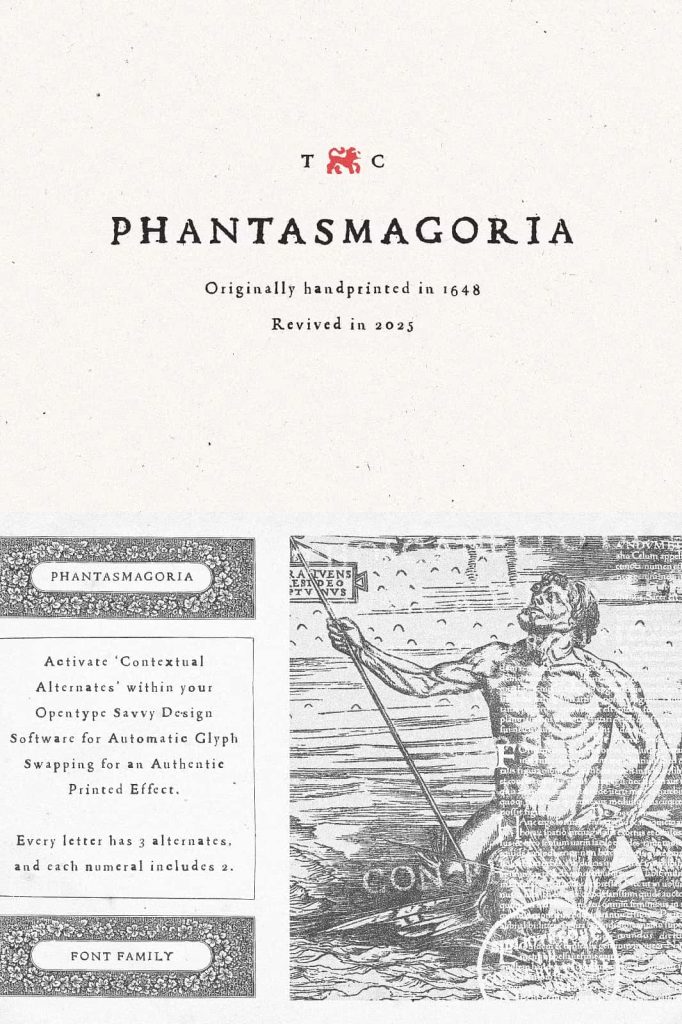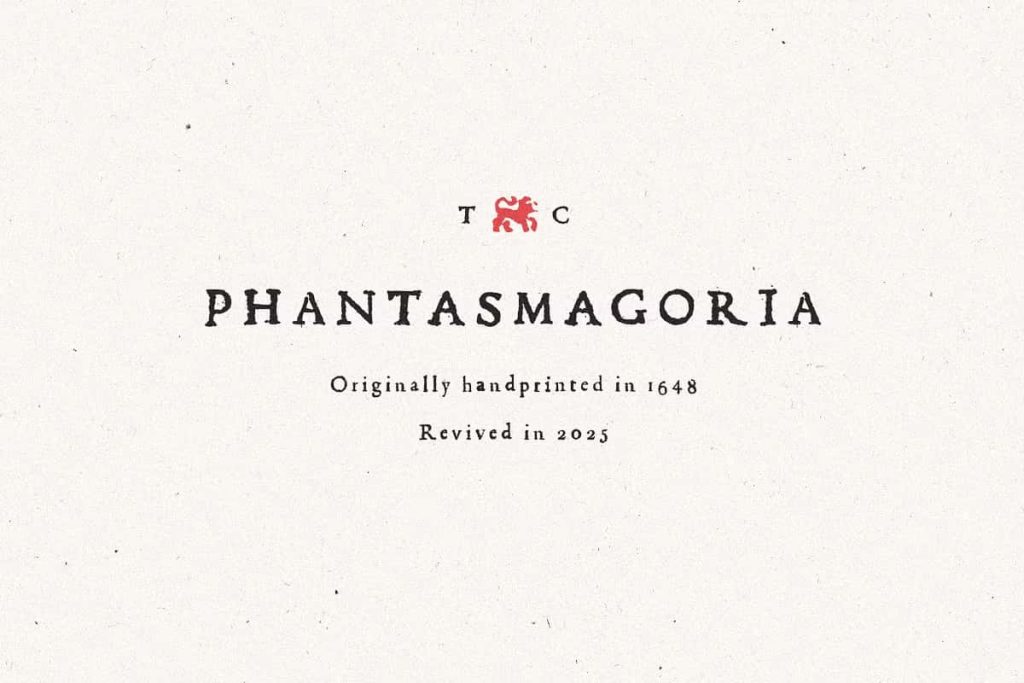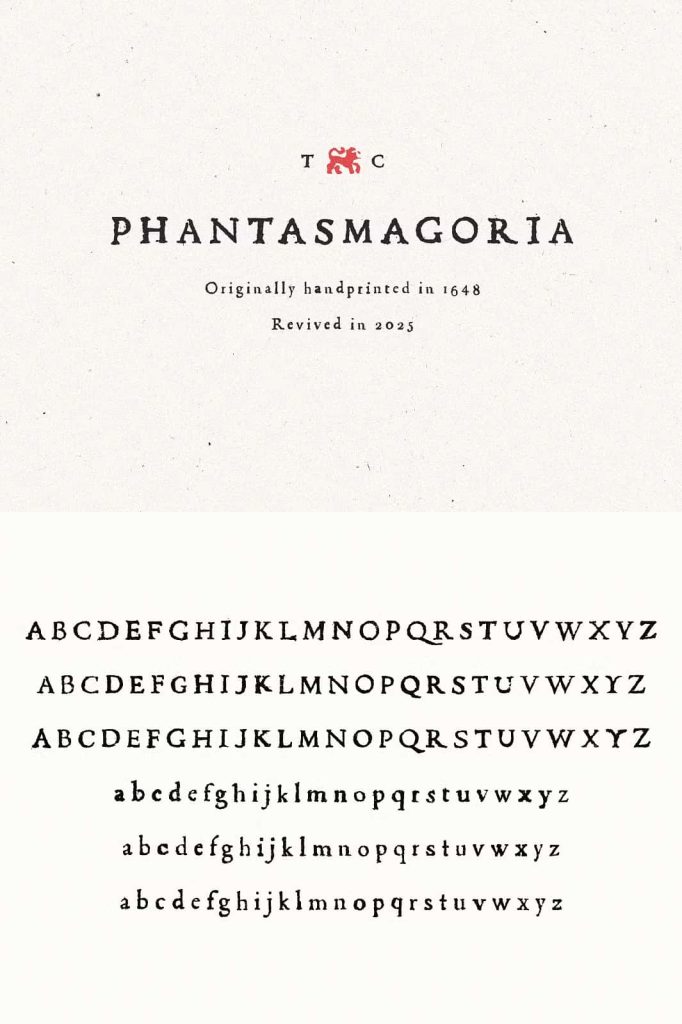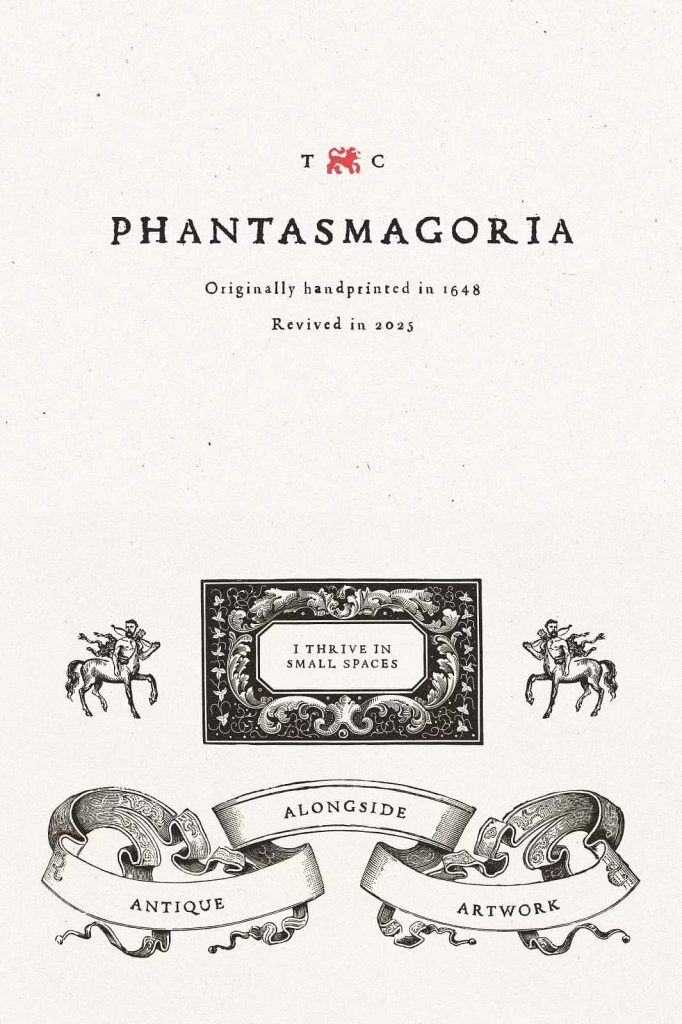
Phantasmagoria Vintage Display Font
Phantasmagoria is a remarkable vintage display font that brings the elegance and craftsmanship of seventeenth-century typography into modern design. Originally printed in 1648 and carefully revived in 2025, this unique typeface preserves the beauty of authentic historical printing while providing the functionality that today’s designers expect. Every letter has been faithfully restored from genuine antique prints, allowing you to create projects that capture the timeless atmosphere of centuries-old letterpress typography.
More than simply recreating an old font, Phantasmagoria carefully preserves the character, texture, and personality found in original hand-pressed printing. Each glyph reflects the subtle imperfections, organic shapes, and handcrafted details that made early typography so distinctive. The result is a font family that feels authentic, expressive, and historically rich while remaining fully compatible with modern creative workflows.
Whether you are designing elegant wedding invitations, historical book covers, luxury branding, premium packaging, editorial layouts, or artistic promotional materials, Phantasmagoria delivers a timeless visual identity filled with mystery, sophistication, and old-world charm.
Inspired by Authentic Typography from 1648
Phantasmagoria begins with genuine historical source material. Every character originates from authentic printed works dating back to 1648, preserving the visual language of early European typography. Rather than imitating vintage letterforms through modern illustration, this typeface carefully restores real historical characters to maintain their original personality.
The restoration process respects the unique qualities of antique printing while refining each glyph for today’s digital publishing standards. This thoughtful balance allows designers to experience the beauty of historical typography without sacrificing modern usability.
The result is a display font that feels historically accurate while remaining practical for professional graphic design, publishing, and branding.
Beautifully Restored for Modern Design
Historical typefaces often contain imperfections caused by centuries of aging, worn printing blocks, and traditional press techniques. Instead of removing every irregularity, Phantasmagoria embraces these characteristics and carefully restores them into a polished digital typeface.
Each letter maintains the handcrafted appearance of original letterpress printing while offering clean vector outlines and reliable performance across print and digital media. This restoration process allows designers to enjoy authentic vintage typography with the convenience of contemporary font technology.
By preserving its historical character, Phantasmagoria creates typography that immediately communicates authenticity, heritage, and timeless craftsmanship.
Automatic Alternates for Natural Letterpress Variation
One of the most distinctive features of Phantasmagoria is its intelligent system of automatic alternate characters. Every letter includes three alternate versions that automatically rotate throughout your text, creating subtle visual variation from one character to the next.
This feature recreates the irregular appearance of traditional hand-set letterpress printing, where no two impressions looked perfectly identical. Instead of producing repetitive digital typography, Phantasmagoria introduces natural variation that gives every word a more authentic handcrafted appearance.
The automatic alternates help eliminate repetitive letter patterns while adding depth, realism, and visual interest to headlines, titles, and decorative text.
Bonus Historical Symbols Included
In addition to its beautifully restored alphabet, Phantasmagoria includes a collection of decorative symbols inspired by the same historical period. These bonus ornaments allow designers to enhance layouts with authentic vintage details that perfectly complement the typeface.
Use these historical symbols to decorate invitations, certificates, editorial pages, packaging, menus, labels, and branding materials. Their classic appearance helps create immersive designs that celebrate the elegance of traditional printmaking.
Perfect for Historical and Luxury Design Projects
Phantasmagoria adapts beautifully to a wide variety of professional and artistic applications where timeless typography plays a central role.
Wedding Invitations and Stationery
Create elegant invitations, save-the-date cards, menus, place cards, certificates, and personalized stationery with typography that reflects romance, tradition, and refined craftsmanship.
Book Covers and Publishing
The font works exceptionally well for historical novels, fantasy books, poetry collections, academic publications, journals, and premium book covers that require authentic vintage typography.
Luxury Branding and Packaging
Design sophisticated logos, product packaging, labels, wine bottles, perfume boxes, artisan products, gourmet foods, and premium branding materials with a distinctive historical aesthetic.
If you are searching for a vintage display font that combines historical accuracy, artistic craftsmanship, and modern usability, Phantasmagoria Vintage Display Font is an exceptional choice. From wedding invitations and luxury branding to editorial design, book publishing, packaging, and creative artwork, this remarkable typeface allows you to bring centuries of typographic heritage into today’s design world with confidence and style.